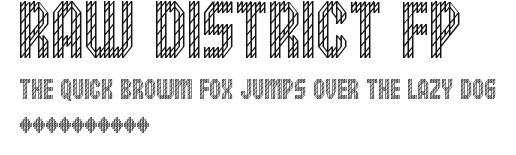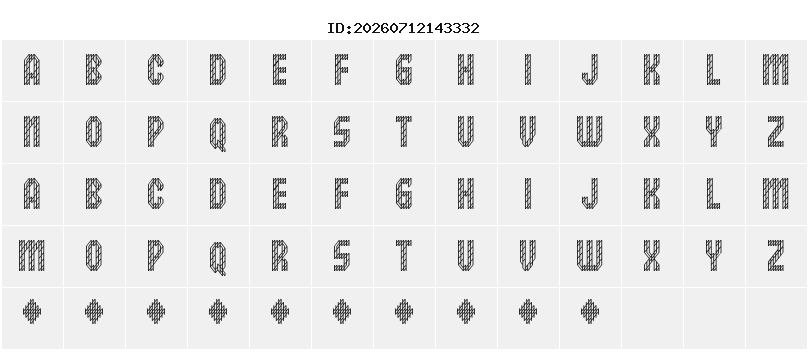
• Font Name: Raw District FP
• Font ID: AzmiKamarullah: Raw District FP: 2015
• Full Font Name: Raw District FP
• Version: Version 1.001 2015
• PostScript Name: RawDistrictFP
• Character Count: 95
• Designer: Azmi Kamarullah
• Manufacturer: Azmi Kamarullah
About Raw District FP.ttf
Raw District FP.ttf is a modern, elegant sans-serif font designed for ultimate readability and visual harmony. Perfect for branding, headlines, web design, and print materials.